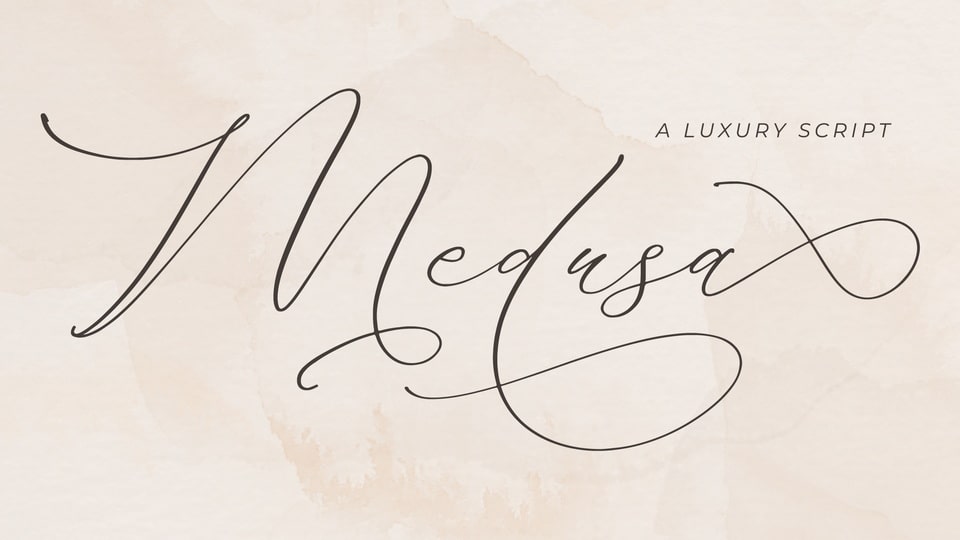
Download Medusa font, a dazzling handwritten script typeface, neatly crafted and highly detailed. Medusa font is perfect for an elegant and luxury logo, book or movie title design, fashion brand, magazine, clothes, lettering, quotes, and so much more.